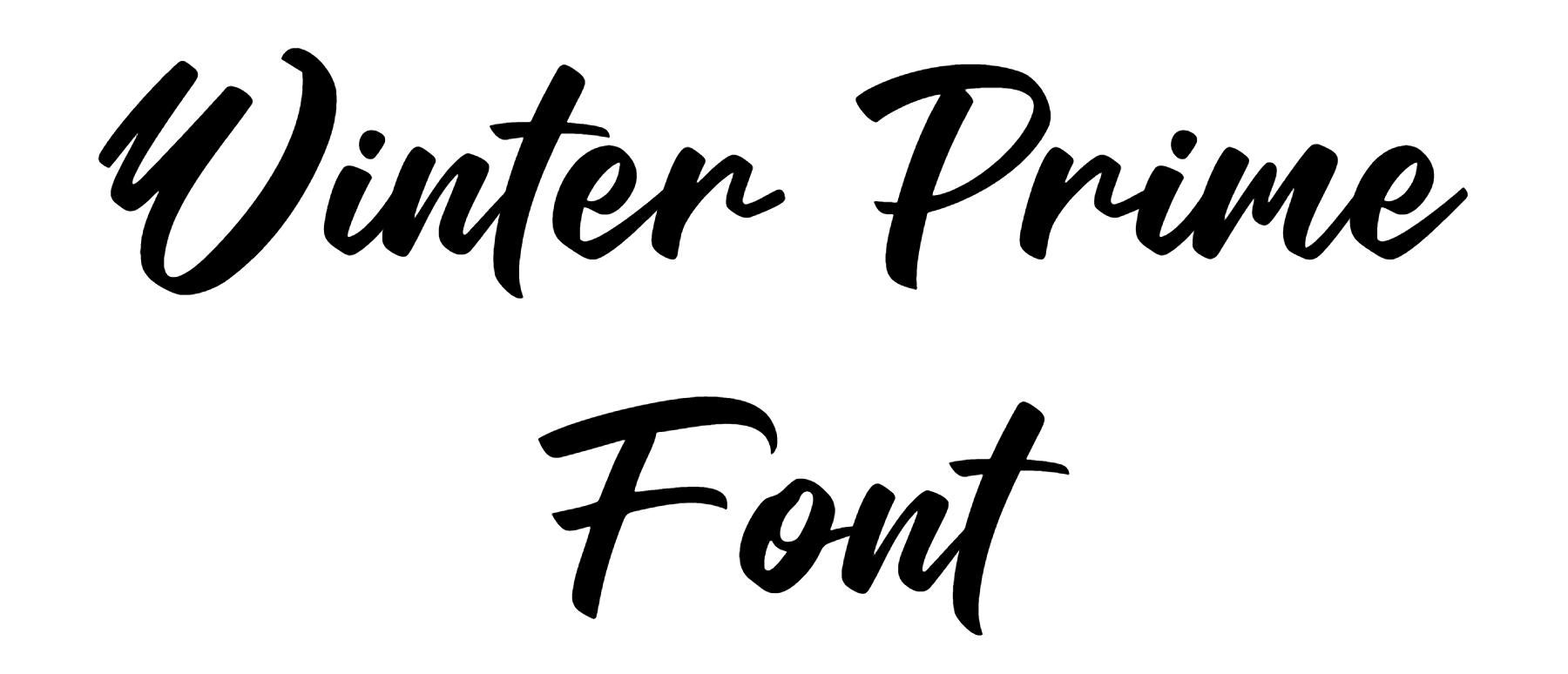
Winter Prime
Winter Prime is a handwritten font created by Khurasan (2024). It has a casual, written-with-a-pen look that makes designs feel personal. It's a free download, and you can try it with your own text in the preview above first.
What You Can Type With Winter Prime
With complete upper and lowercase letters and all ten digits, Winter Prime is ready for real wording, not just a single headline. Common punctuation such as &, !, ? and @ is included as well. It doesn't include accented letters such as é or ñ, which makes it an English-only font.
Where Winter Prime Works Best
Winter Prime is a natural fit for greeting cards, journal pages and friendly social posts. Set it a bit larger than you would a normal text font. Handwriting styles lose their charm once they get too small to read comfortably.
Who designed Winter Prime font?
Does Winter Prime support accented letters?
No. Winter Prime has no accented letters such as é, ñ or ü, so it's best for English text.